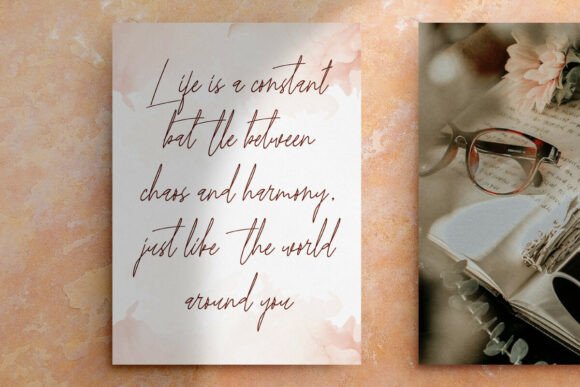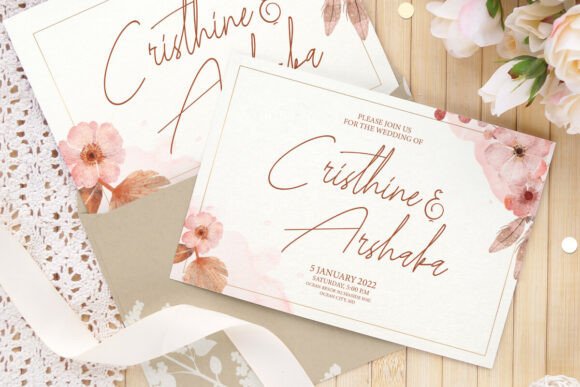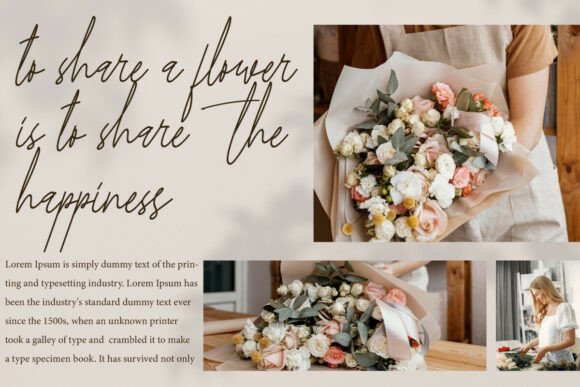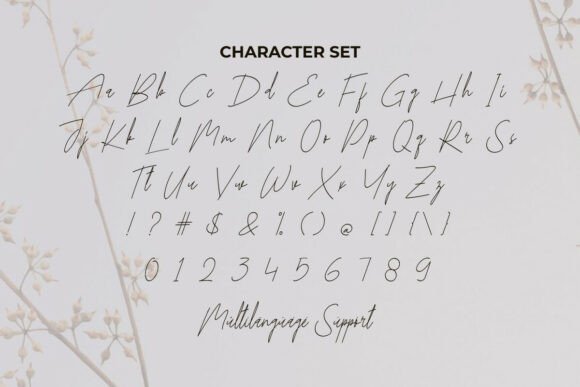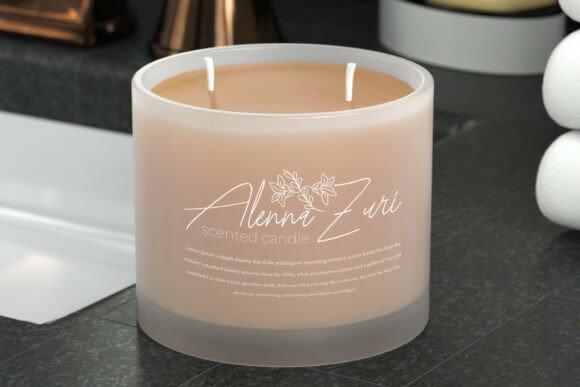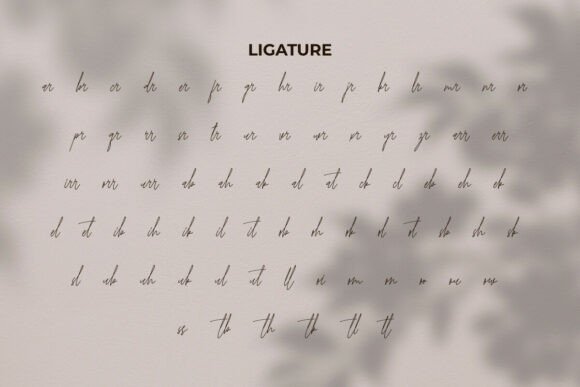
Introduction to Kiona Rosebelle Font
Introducing Kiona Rosebelle, a graceful and classy minimalist monoline font that captures the essence of modern luxury and effortless charm.
Designed to mimic authentic, delicate penmanship, this signature script elevates your design work with an immediate touch of elegance and femininity Kiona Rosebelle is built for sophisticated projects, featuring a large collection of beautiful ligatures that allow for realistic, flowing handwritten text.
Key Features of Kiona Rosebelle Font